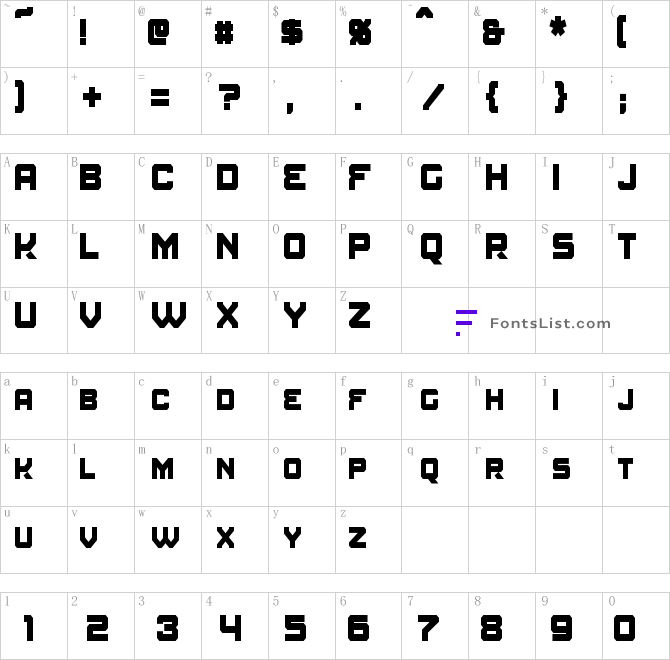
- Font Name:Amuro Condensed
Amuro-Condensed-Bold.otf is a very beautiful artistic font, Amuro-Condensed-Bold.otf is widely used in the design and printing of various books and pictures,Amuro-Condensed-Bold.otf has a strong visual impact,Amuro-Condensed-Bold.otf is a commonly used font in newspapers, magazines and books, and is used in posters, e-commerce Poster design, store design, logo design, font design and other fields.Amuro-Condensed-Bold.